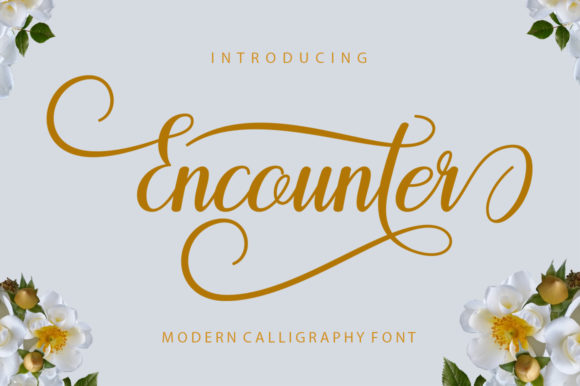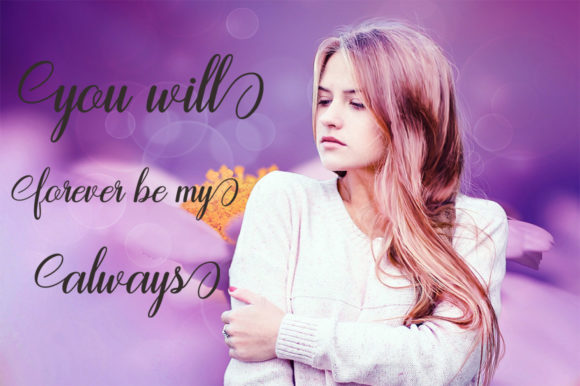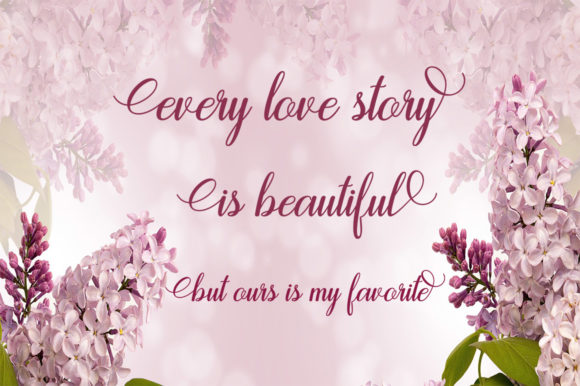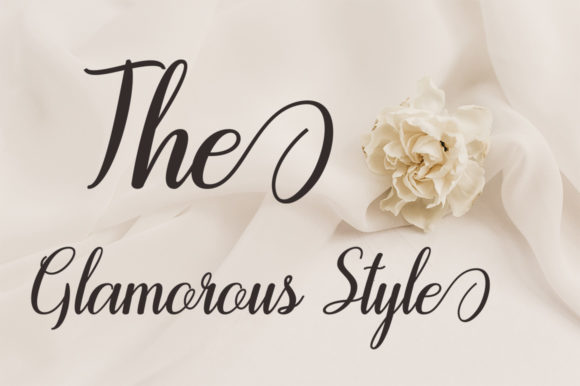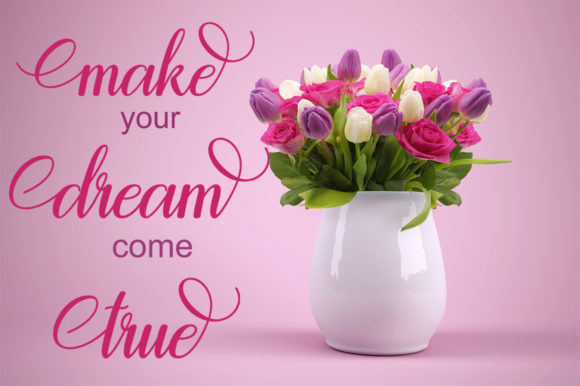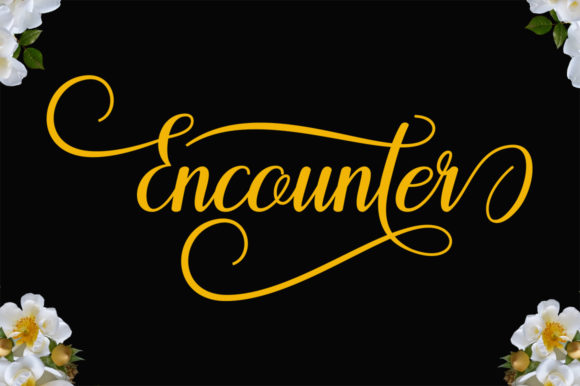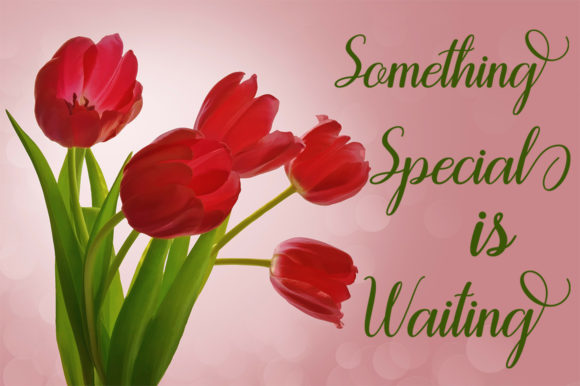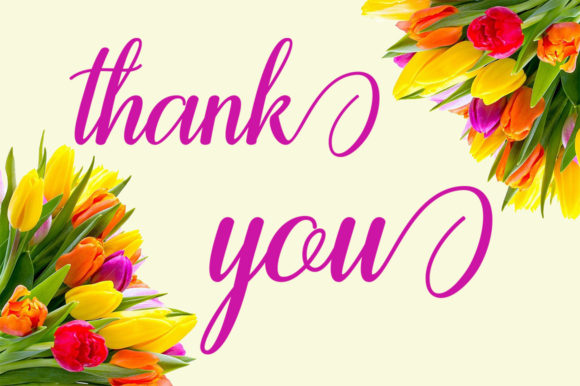
Encounter Font
About Encounter Font
The Encounter is a new modern script font with a smooth base line and a trendy and feminine style. It’s perfect on T-shirts, thank you cards, quotes, greeting cards, logos, business cards and more.